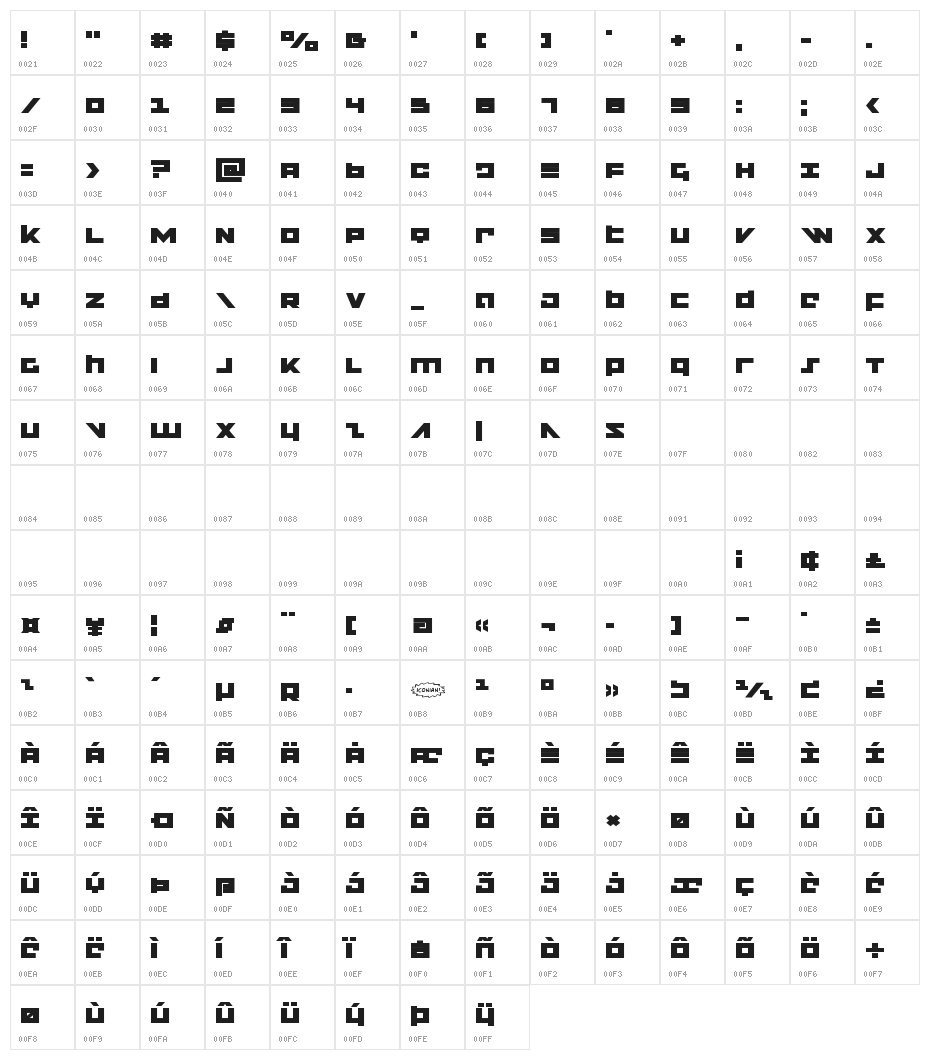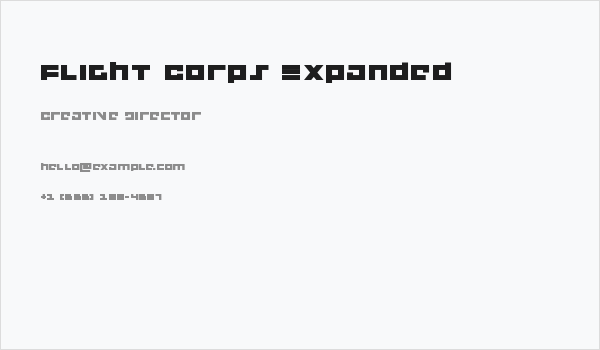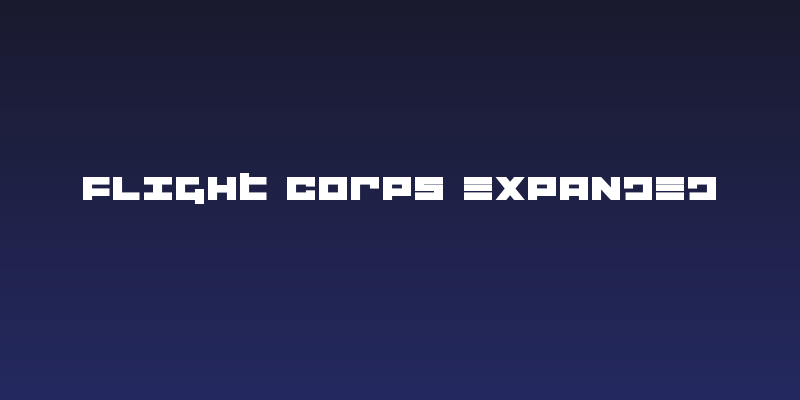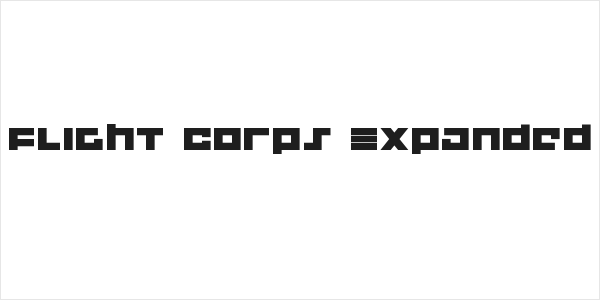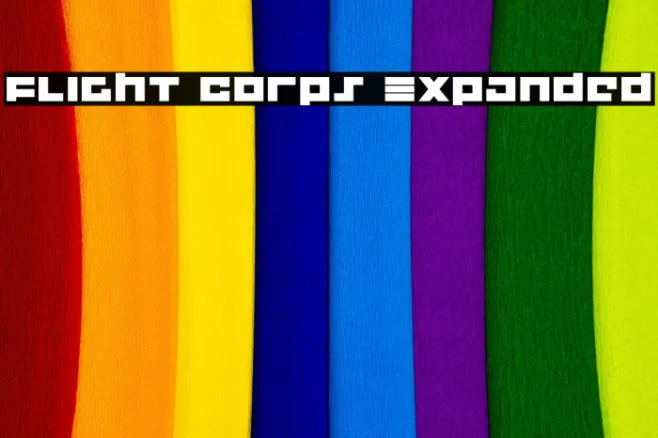
Flight Corps Expanded Font
Flight Corps Expanded Description
This font features a bold, geometric design with a futuristic and industrial feel. The characters are constructed with sharp angles and straight lines, giving it a mechanical and robust appearance. The uppercase and lowercase letters maintain a consistent style, with the lowercase being slightly smaller but equally bold. The numbers and special characters follow the same design principles, ensuring uniformity across all glyphs. This font is highly legible and impactful, making it suitable for attention-grabbing designs.
| Proposed Projects | Ideal for sci-fi themed projects, video game titles, posters, and branding that requires a strong, modern look. |